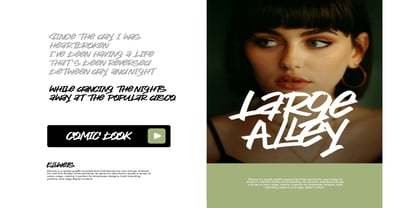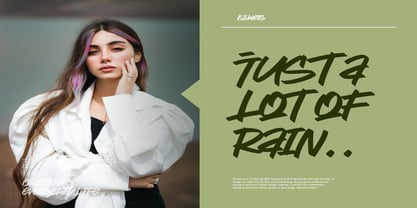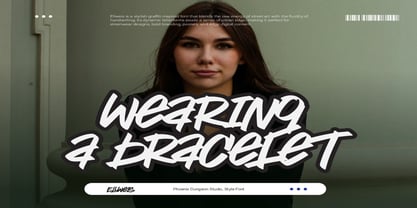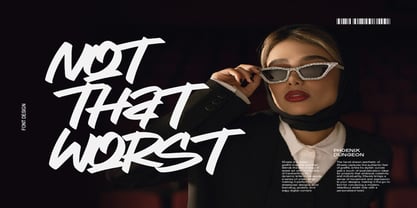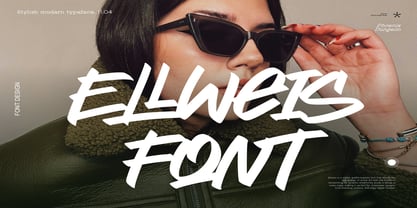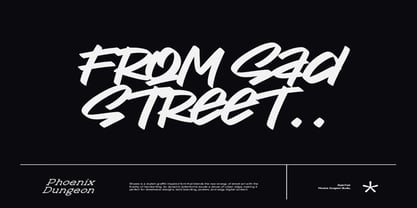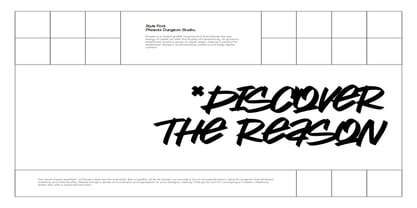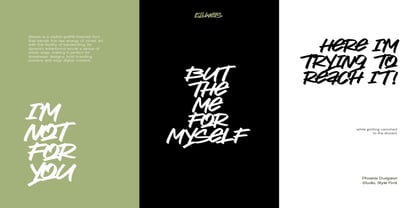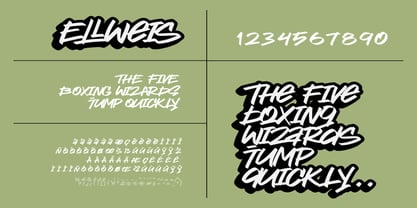
Ellweis
by Phoenix Group
The Ellweis Font Family was designed by Alif Naufal Muzakki and published by Phoenix Group. Ellweis contains 1 styles.
Ellweis is a stylish graffiti-inspired font that blends the raw energy of street art with the fluidity of handwriting. Its dynamic letterforms exude a sense of urban edge, making it perfect for streetwear designs, bold branding, posters, and edgy digital content. The hand-drawn aesthetic of Ellweis captures the authentic feel of graffiti, while its stylish curves add a touch of sophistication. Ideal for projects that embrace creativity and individuality, Ellweis brings a sense of movement and expression to your designs, making it the go-to font for conveying a modern, rebellious street vibe with a personalized twist.